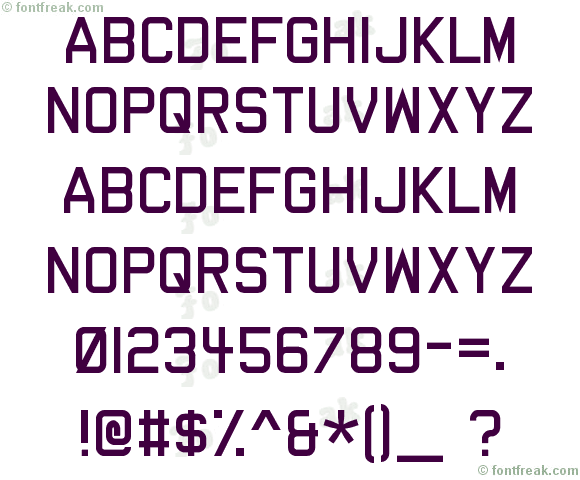
Dev Gothic
About Dev Gothic
The Dev Gothic font by The Logo Factory is a striking sans-serif typeface that embodies a modern, minimalist aesthetic. Released in 2002, this font showcases a clean and bold design, characterized by its uniform stroke weight and a lack of decorative elements, making it highly versatile for various applications. The letters are well-spaced, contributing to excellent legibility, even at smaller sizes.
Dev Gothic is perfect for a variety of use cases, including tech-related branding, website headers, and promotional materials. Its straightforward yet impactful design makes it an excellent choice for small business owners looking to establish a contemporary image. Additionally, content creators can utilize this font in social media graphics, ensuring their posts stand out with clarity and style. Graphic designers will also find it suitable for creating sleek logos and business cards, where a touch of professionalism is essential.
What sets the Dev Gothic font apart is its seamless blend of simplicity and sophistication. Its clean lines and balanced proportions allow it to adapt effortlessly to various design contexts, making it a valuable addition to any designer's collection. Whether you are crafting an eye-catching website or designing elegant marketing materials, the Dev Gothic font delivers a fresh and contemporary look that resonates with today’s audience.